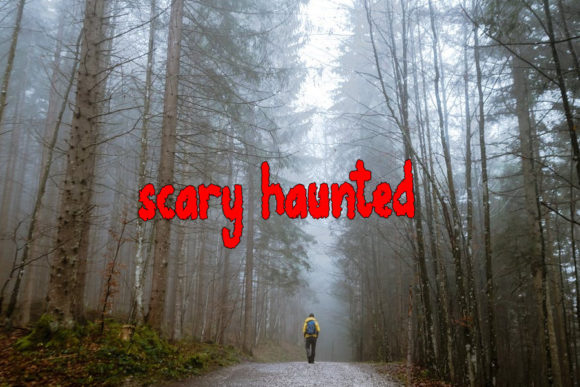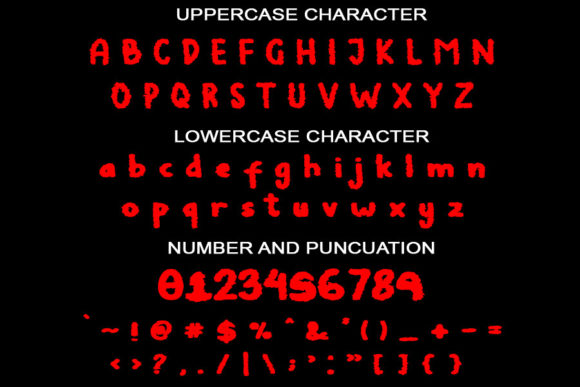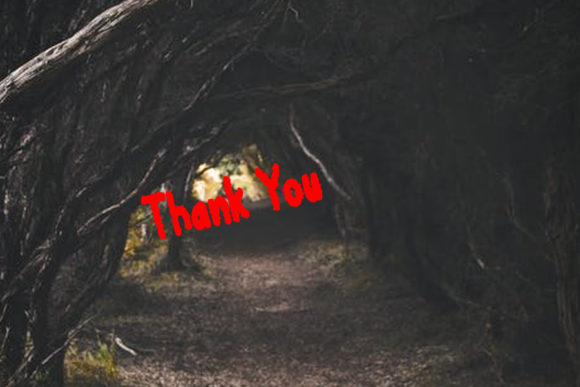
Introduction to Forest Ghost Font
Forest Ghost is a cool display font.
It is perfectly suitable for any Halloween-related project or crafty idea The only limit is your imagination.
Key Features of Forest Ghost Font
Why Choose Forest Ghost Font?
Forest Ghost Font offers exceptional quality and versatility, making it a valuable addition to your design toolkit. Whether you’re creating for personal projects or commercial use, Forest Ghost Font delivers professional results.